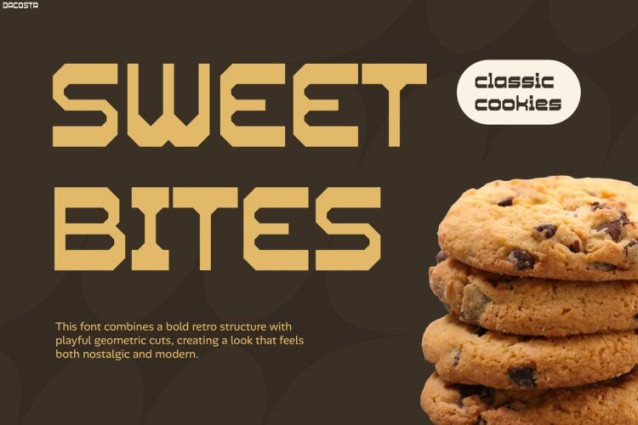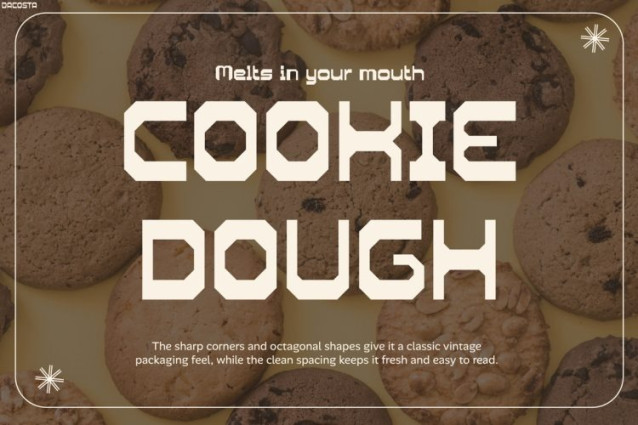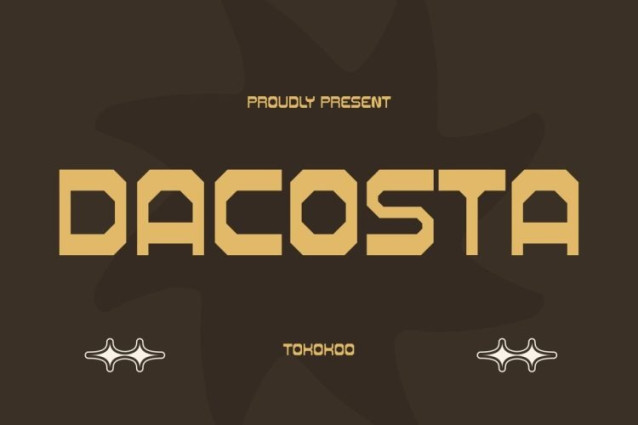
Dacosta Font
Dacosta Font is a futuristic display font that blends retro aesthetics with modern geometric precision. Inspired by vintage technology, cyber visuals, arcade culture, and bold packaging design, this font instantly creates a strong and stylish visual identity. Moreover, Dacosta features sharp corners, clean structures, and unique futuristic letterforms that make every word feel modern, bold, and highly distinctive. Unlike ordinary retro fonts, Dacosta combines nostalgic sci-fi energy with contemporary readability, making it both visually powerful and functional. As a result, this font works perfectly for branding, packaging, posters, product labels, and digital promotions. In addition, the balanced geometric shapes help designs feel premium, structured, and visually memorable. Therefore, Dacosta becomes the perfect typeface for projects that want retro-futuristic vibes with professional creative impact.Retro Font Dacosta delivers a unique mix of vintage futuristic aesthetics and modern branding versatility. Furthermore, the bold geometric characters help headlines look sharp, clean, and attention-grabbing. Thanks to its retro-tech appearance, this font creates a stylish atmosphere that feels nostalgic yet modern at the same time. At the same time, the structured letterforms keep typography highly readable across print and digital layouts. Besides that, Dacosta includes uppercase, lowercase, numbers, and punctuation, so designers can create flexible and eye-catching typography compositions effortlessly. Consequently, this font works beautifully for food packaging, snack branding, merchandise, posters, logo designs, and futuristic promotional materials.